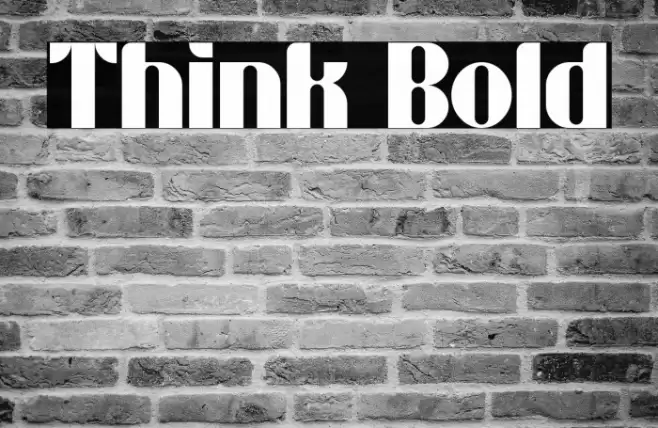
Think Bold Font
Think Bold Description
This bold and striking font features a unique blend of geometric and organic shapes, creating a modern and eye-catching appearance. The uppercase letters are characterized by their thick, block-like forms with subtle curves, while the lowercase letters maintain a consistent weight and style. The numerals are equally bold, ensuring they stand out in any design. Special characters are designed with the same attention to detail, making them perfect for a variety of uses. The font's high contrast and wide character spacing give it a distinctive look that is both powerful and versatile.
A bold, modern font with geometric and organic elements, featuring high contrast and wide spacing from Uncategorized fonts.
- Font: Think Bold
- Proposed Projects: Ideal for branding, advertising, poster design, and any project requiring a strong visual impact.
- Character Spacing: Wide